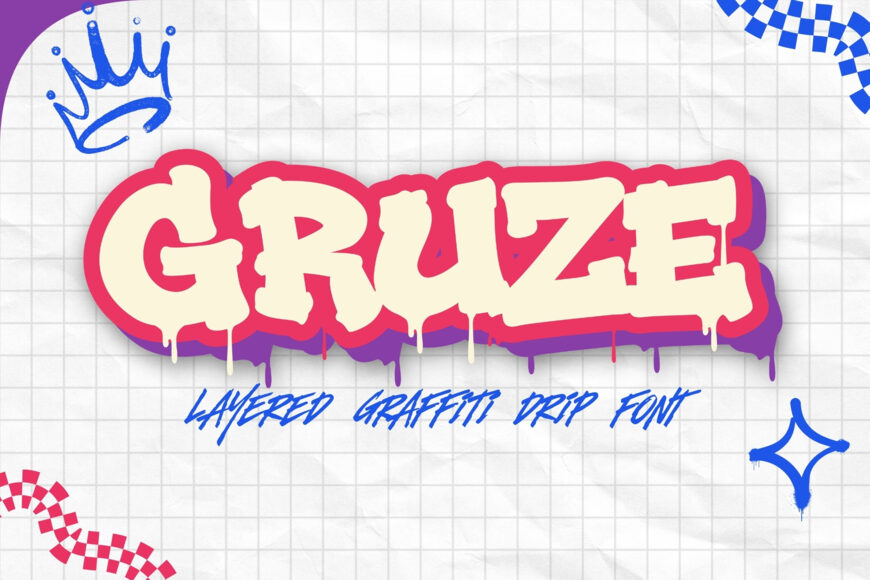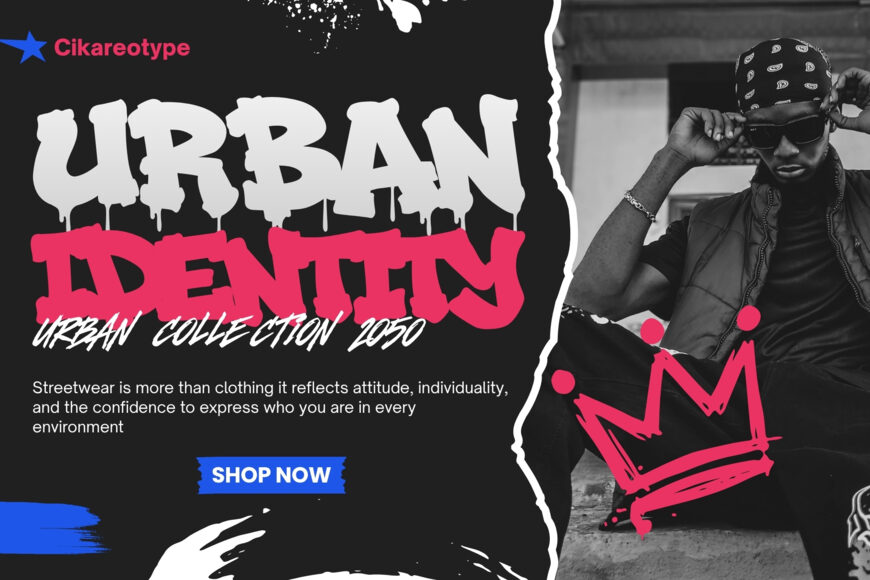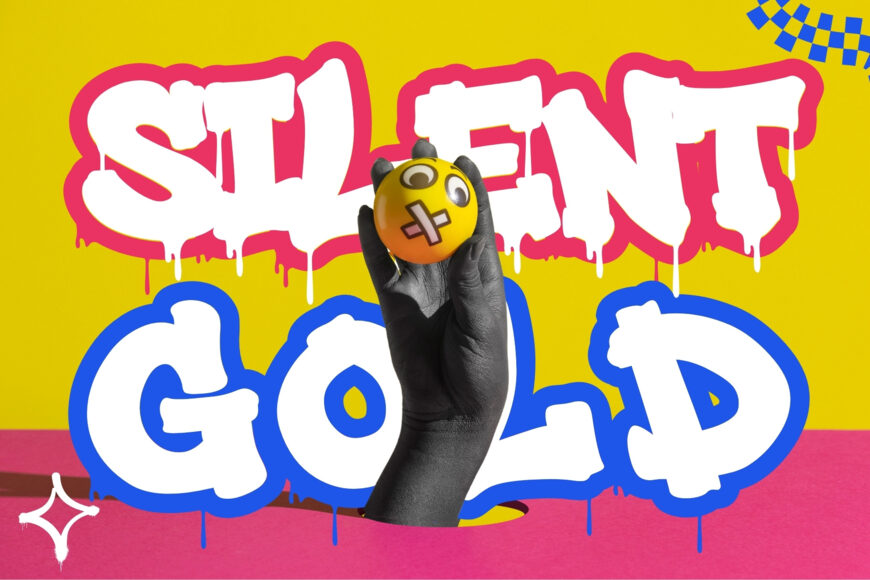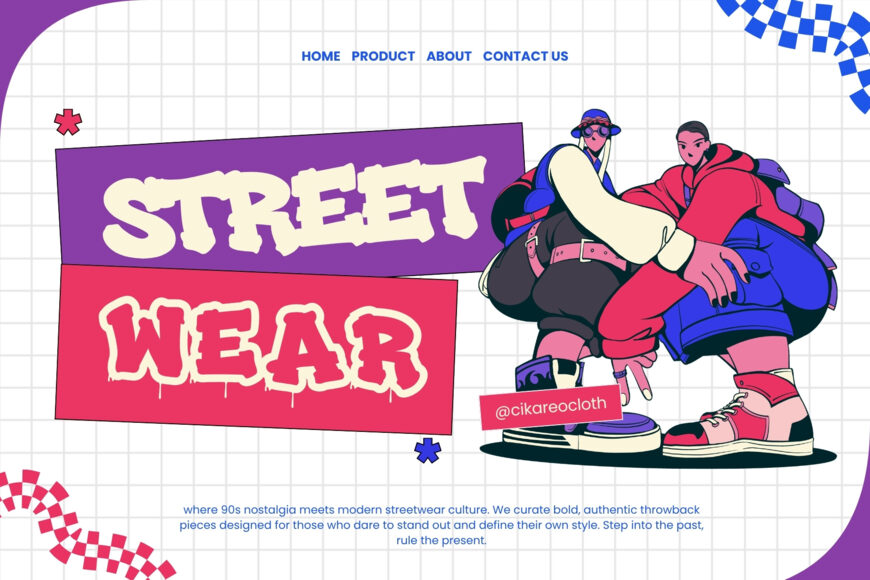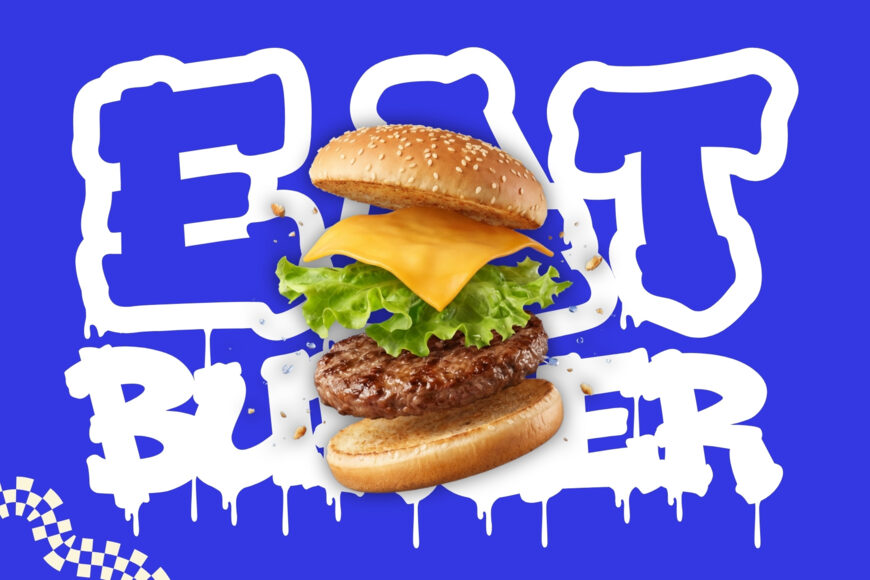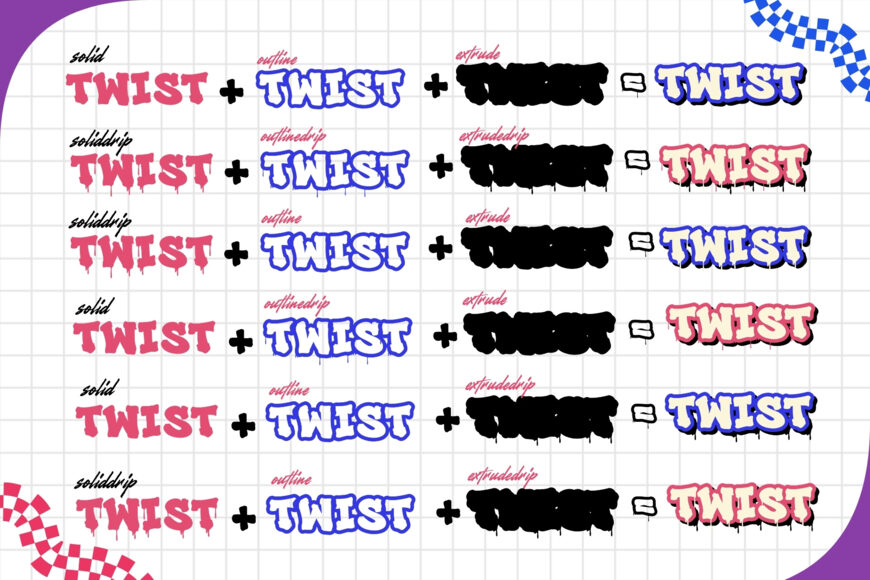
Inject raw street culture, bold urban energy, and dynamic layered style into your designs with Gruze! Designed as an eye-catching layered graffiti drip font, it features thick blocky letterforms, authentic paint drips, and multi-layered depth that makes your lettering pop off the page.
Its bold bubble-graffiti character delivers an urban street-art vibe that commands immediate focus and gives your visual work an edgy, rebellious attitude.